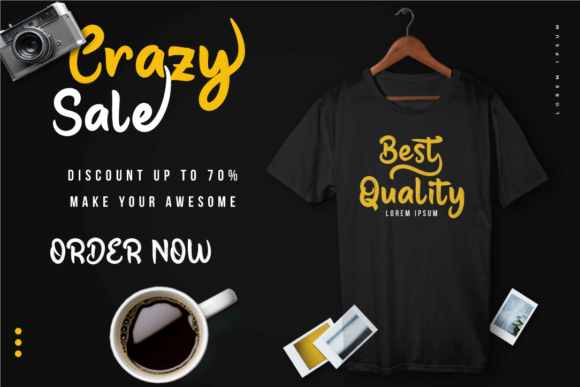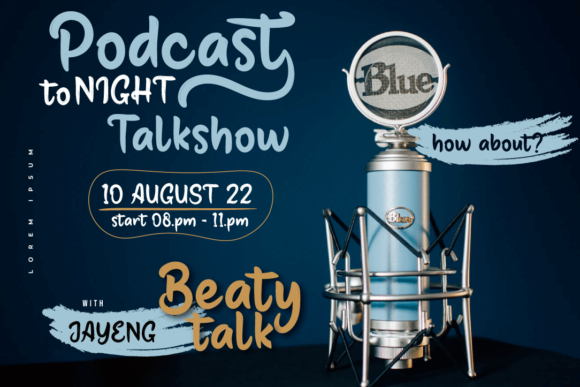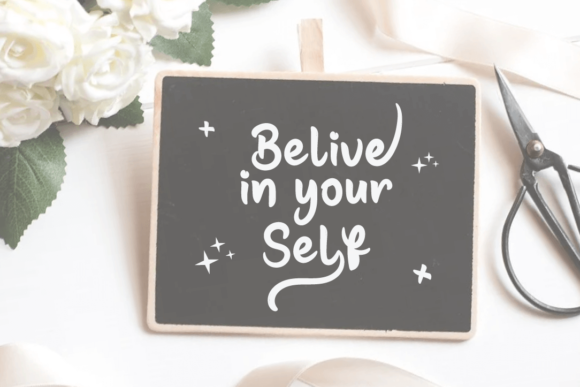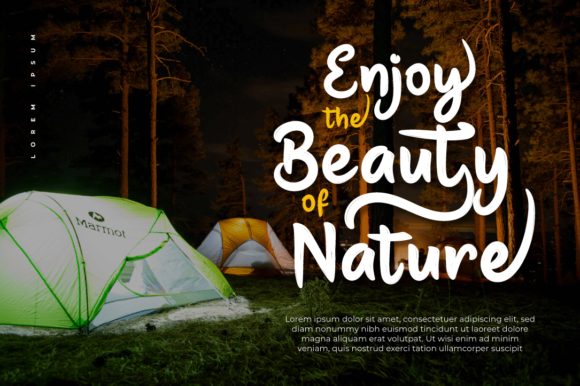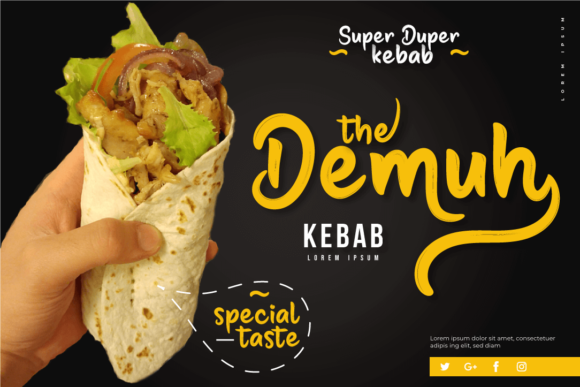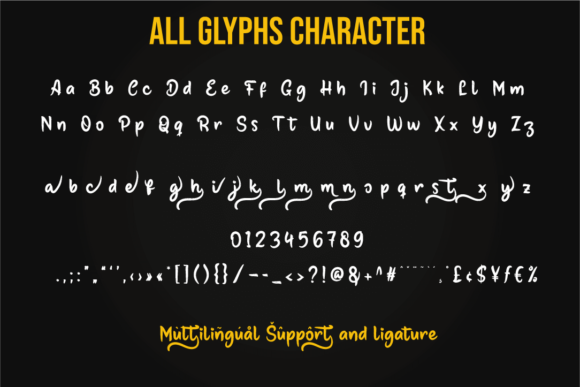
Buman Font: Unleash Your Creativity with this Stunning Brush Handwritten Font
Are you a designer, crafty person, or someone who loves to create unique and outstanding designs? Look no further than the Buman Font, a beautiful brush handwritten font that is perfect for making your designs stand out. In this article, we’ll explore the features and benefits of the Buman Font, and how it can elevate your designs to the next level.
What is Buman Font?
Buman Font is a brush handwritten font that is designed to give your designs a personal and creative touch. With its unique and elegant strokes, this font is perfect for creating original and outstanding designs that will capture the attention of your audience. Whether you’re working on a branding project, advertising campaign, or simply creating a poster or banner, the Buman Font is the perfect choice.
Features of Buman Font
The Buman Font has several features that make it a great choice for designers and crafters. Some of its key features include:
- Unique and elegant strokes: The Buman Font has a distinctive brush handwritten style that gives it a personal and creative touch.
- Perfect for a wide range of designs: This font is great for a wide variety of designs, including branding, advertising, posters, banners, packaging, podcasts, outdoor activities, apparel, quotes, beverages, and more.
- Easily readable: Despite its creative and artistic style, the Buman Font is easily readable, making it perfect for use in a variety of contexts.
- High-quality design: The Buman Font is designed with high-quality and attention to detail, ensuring that it looks great in any design.
Benefits of Using Buman Font
So why should you use the Buman Font in your designs? Here are just a few benefits of using this amazing font:
- Add a personal touch to your designs: The Buman Font’s unique and elegant strokes add a personal touch to your designs, making them stand out from the crowd.
- Create original and outstanding designs: With the Buman Font, you can create original and outstanding designs that will capture the attention of your audience.
- Perfect for creative projects: This font is perfect for creative projects, such as branding, advertising, and design projects.
- Easily customizable: The Buman Font is easily customizable, allowing you to adjust the font to fit your design needs.
| Font Name | Buman Font |
| Author | Productype |
In conclusion, the Buman Font is a stunning brush handwritten font that is perfect for making original and outstanding designs. With its unique and elegant strokes, this font is great for a wide variety of designs, including branding, advertising, posters, banners, packaging, podcasts, outdoor activities, apparel, quotes, beverages, and more. Whether you’re a designer, crafty person, or simply someone who loves to create, the Buman Font is a great choice for your next design project.